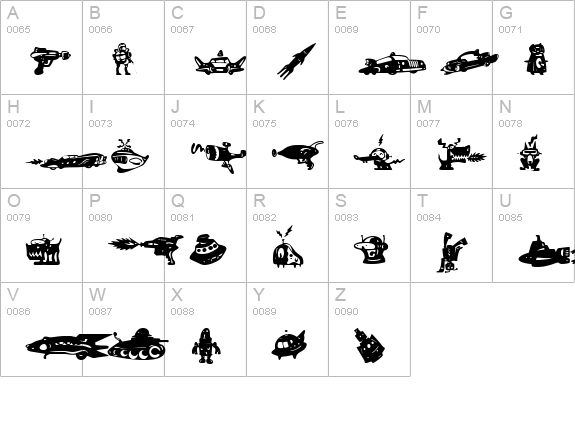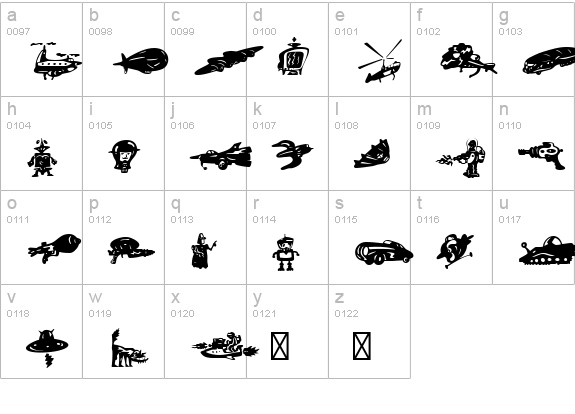
PFAstrobats-Regular is the standard, neutral variant in the PFAstrobats typeface family \xE2\x80\x94 well suited to general body text, paragraphs, and standard typographic work.
PFAstrobats-Regular font is a charming and versatile display typeface that is perfect for adding a touch of whimsy to your design projects. With its playful, hand-drawn style and unique characters, this font is sure to make your designs stand out. Best of all, PFAstrobats-Regular is available for free download at FontsMarket.com, making it accessible to designers of all levels. Whether you're working on a website, poster, or branding project, this font is sure to add a fun and creative touch to your work. Get your hands on PFAstrobats-Regular today and let your creativity soar!